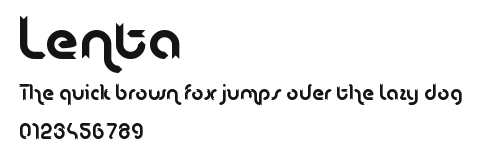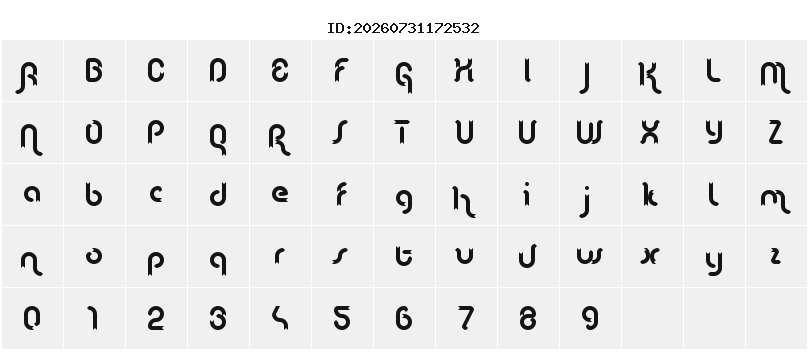
• Font Name: Lenta
• Designer: architaraz
• Description: “Lenta” was built with FontStruct
About Lenta.ttf
Lenta.ttf is a modern, elegant sans-serif font designed for ultimate readability and visual harmony. Perfect for branding, headlines, web design, and print materials.